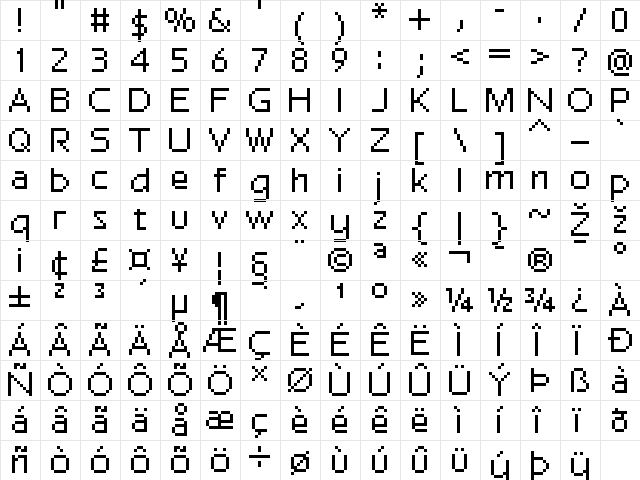
FFF Magazine Extended Regular
| Foundry | Fonts For Flash |
| Designer | Fonts For Flash |
Design Context for FFF Magazine Extended Typeface
FFF Magazine Extended takes a measured approach to typography — its balanced proportions and neutral character make it a reliable workhorse for both digital and print work.